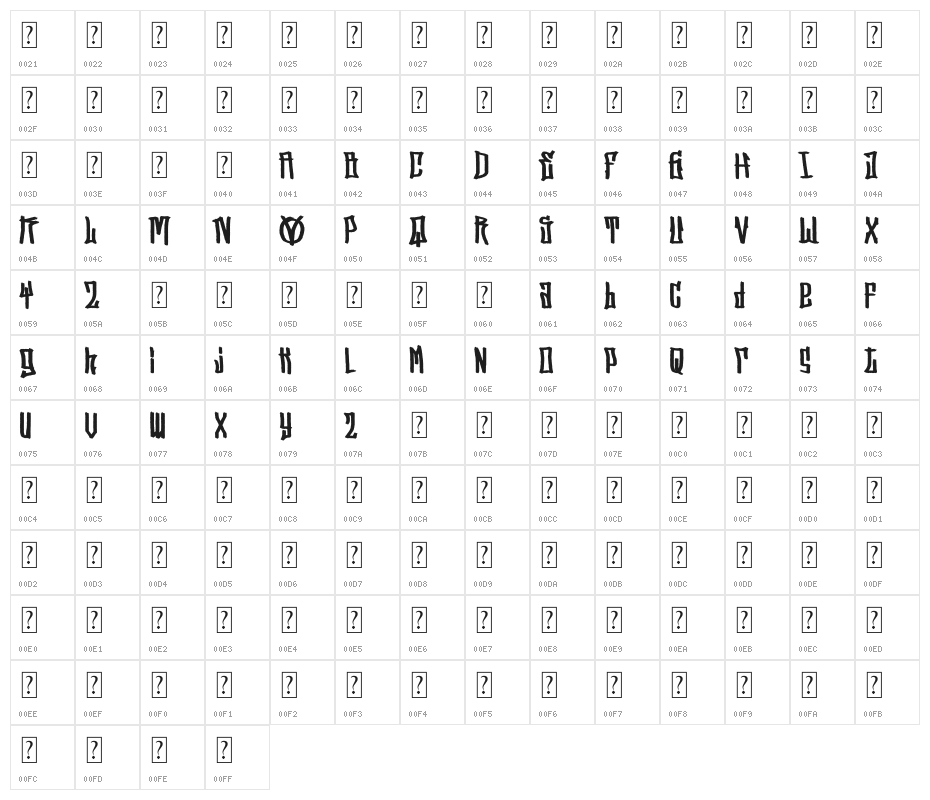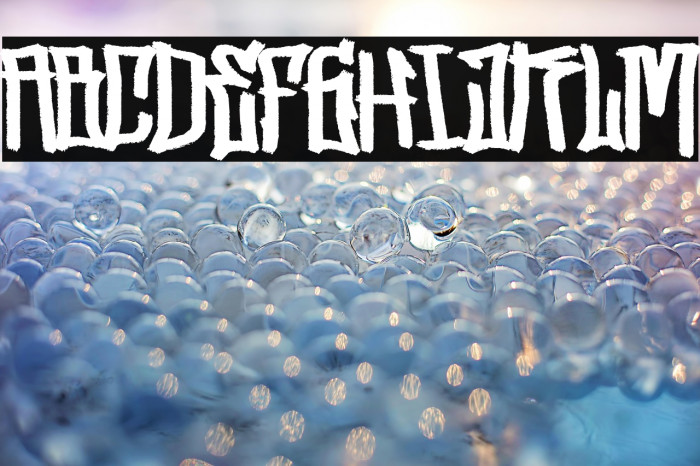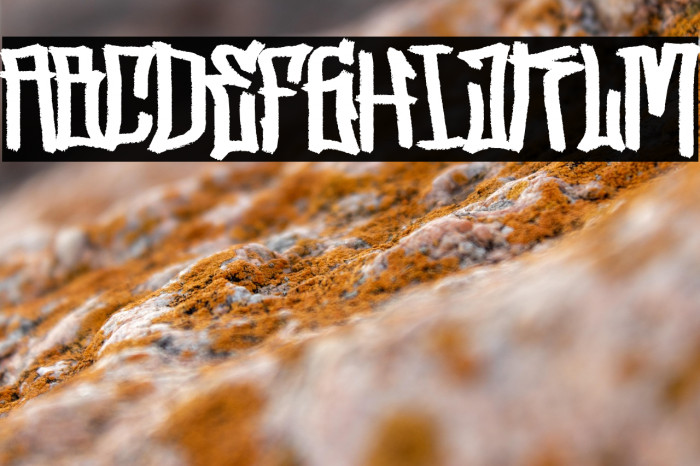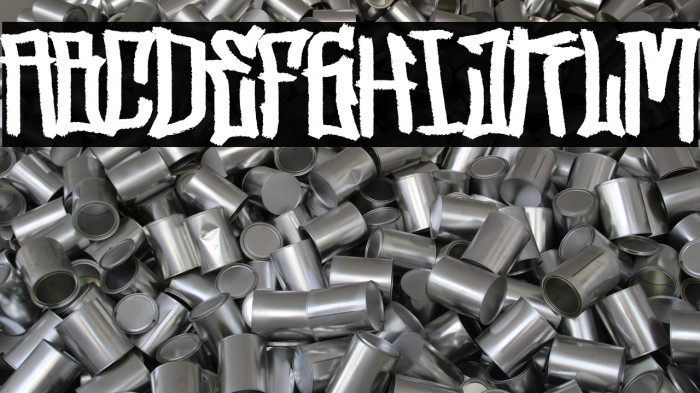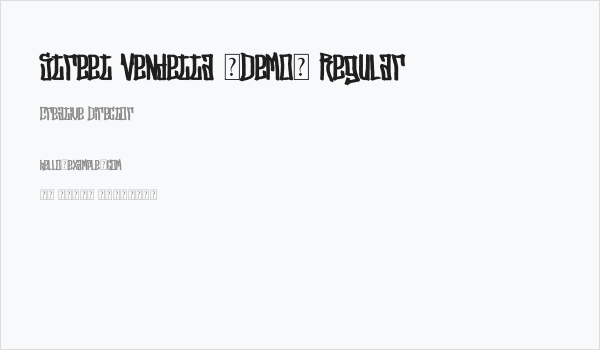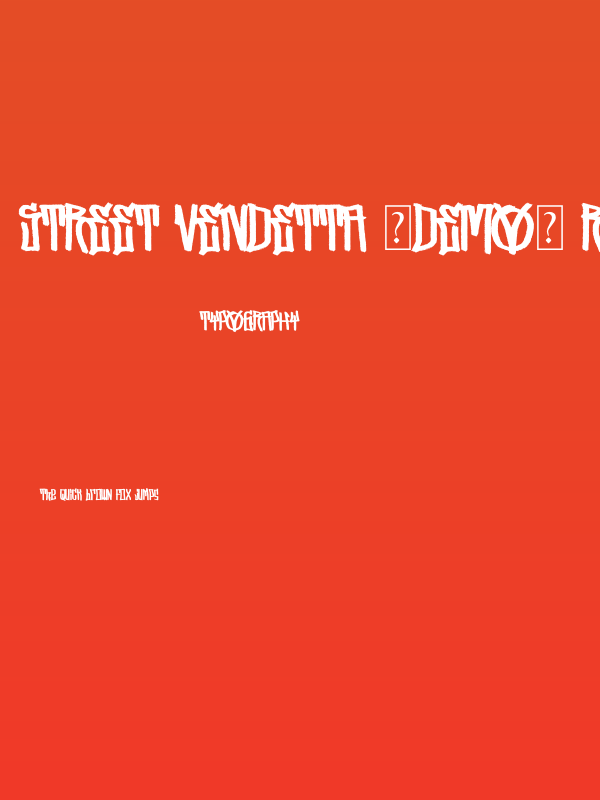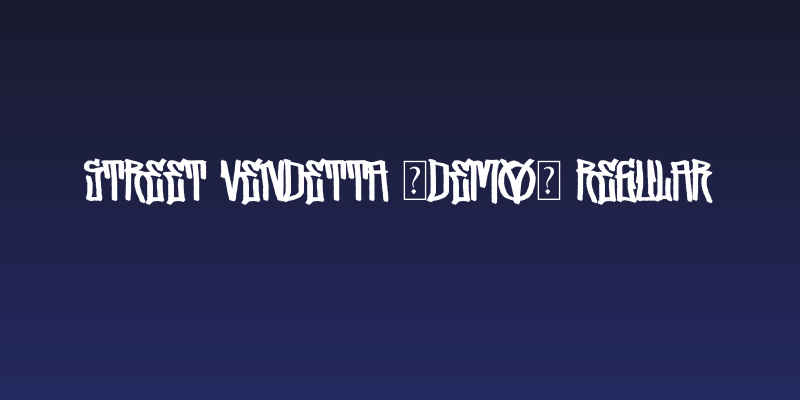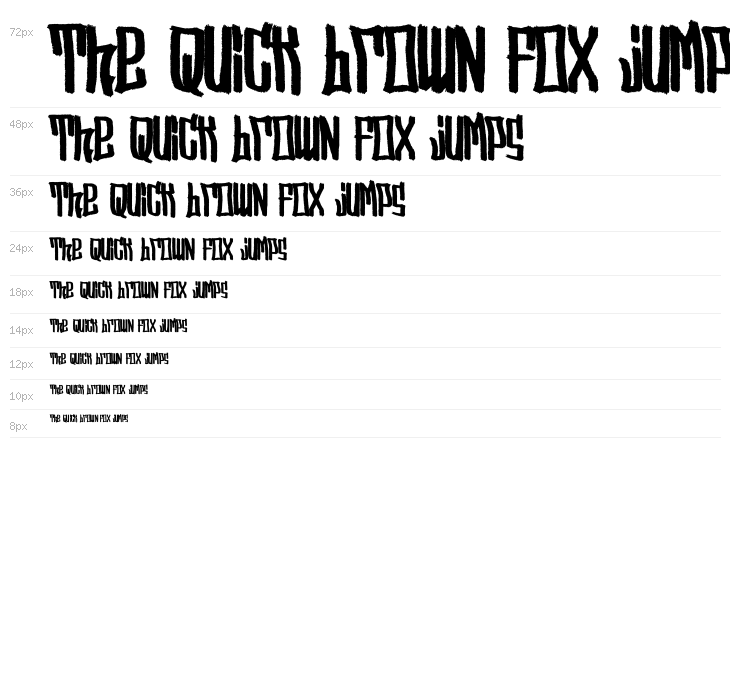
Street Vendetta (Demo) Regular Font
Street Vendetta (Demo) Regular Description
This font features a bold and edgy style, reminiscent of urban graffiti and street art. The characters are designed with sharp angles and a rugged texture, giving them a dynamic and rebellious appearance. The uppercase and lowercase letters maintain a consistent height, while the numbers and special characters integrate seamlessly into the overall design. The font's unique aesthetic makes it stand out, with each letter appearing as if it has been hand-painted with a brush. This adds a personal and artistic touch, making it ideal for projects that require a bold statement.
| Overall Style | Urban, Edgy, Artistic |
| Use Case | Logos, Posters, Album Covers |
| Proposed Projects | Ideal for street art designs, music album covers, urban-themed posters, and edgy branding projects. |